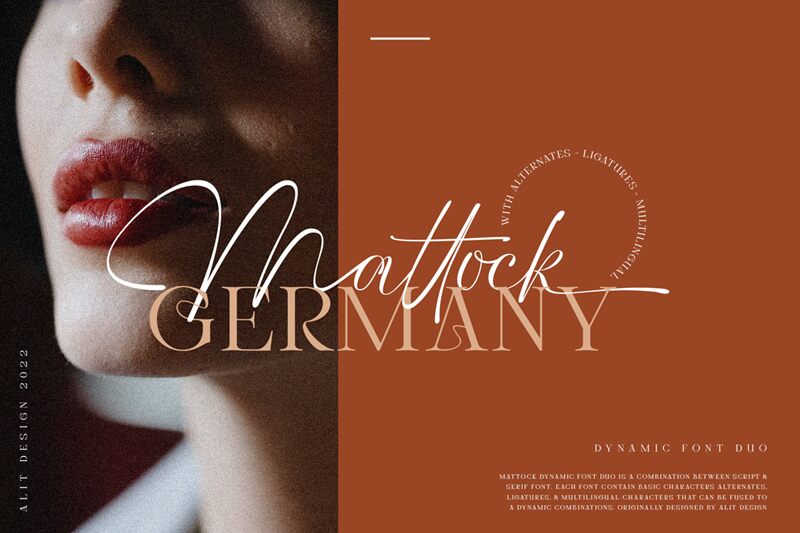
Mattock Regular
Mattock font is a light calligraphy script designed by Alit Design with tender calligraphic forms that seamlessly flow into each other. This elegant and sophisticated free calligraphy font communicates class, elegance, and personality in a refined manner like no other.
Create your next logo design, invitation card, magazine header, greeting cards, handwritten quotes and notes with this beautiful font. Additionally feel free to use it in personal branding projects and product packaging designs.